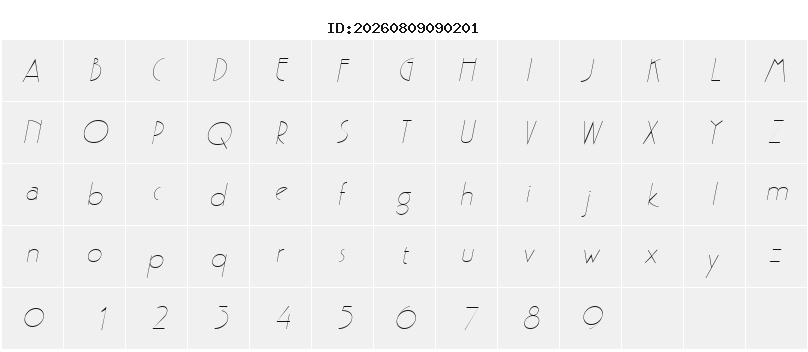
Pergamon Preview
• Font Name: Pergamon
• Font ID: Altsys Fontographer 3.5 Pergamon Italic
• Full Font Name: Pergamon Italic
• PostScript Name: Pergamon-RegularItalic
• Character Count: 227
About Pergamon.ttf
Pergamon.ttf is a modern, elegant sans-serif font designed for ultimate readability and visual harmony. Perfect for branding, headlines, web design, and print materials.